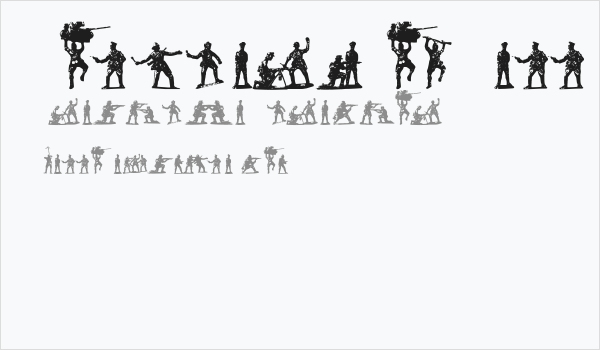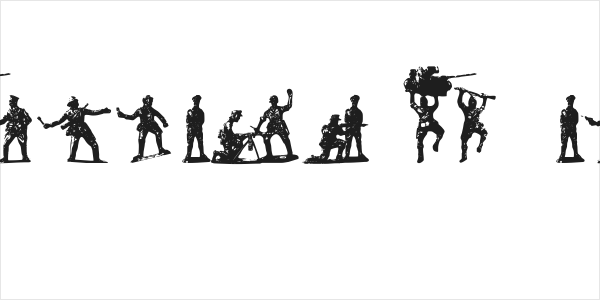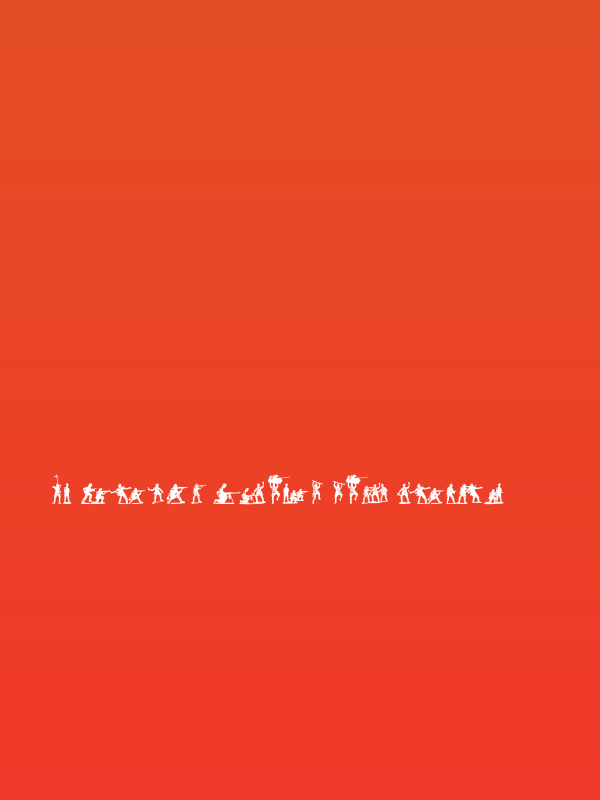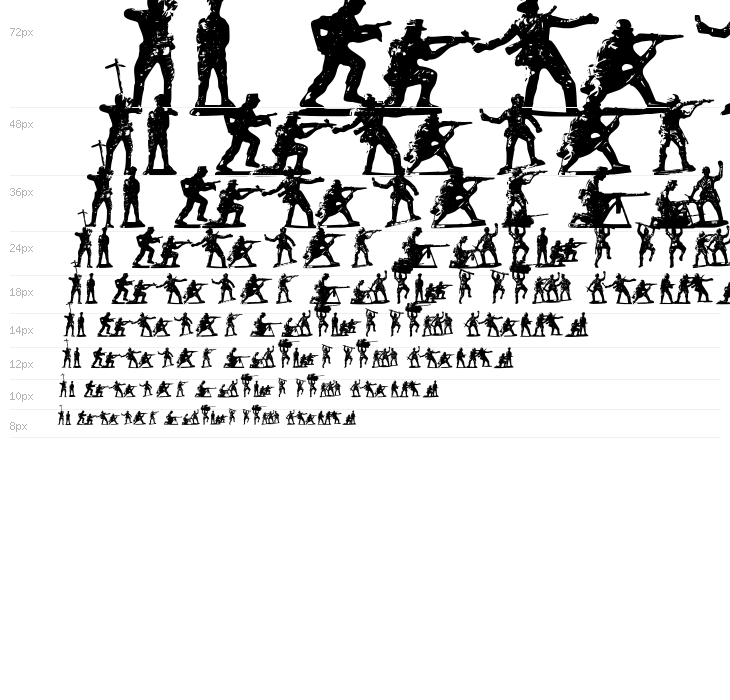
Soldiers of Hell Font
Soldiers of Hell Description
A highly decorative and illustrative font where each character is represented by a silhouette of a soldier in various action poses, resembling toy army figures. The glyphs are complex, detailed, and non-traditional, focusing on visual storytelling rather than legibility.
| Overall Style | Decorative, Thematic, Novelty |
| Use Case | Logos, Posters, Themed Headlines, Event Graphics |
| Proposed Projects | Poster art, themed event invitations, video game titles, military-themed branding, novelty merchandise. |